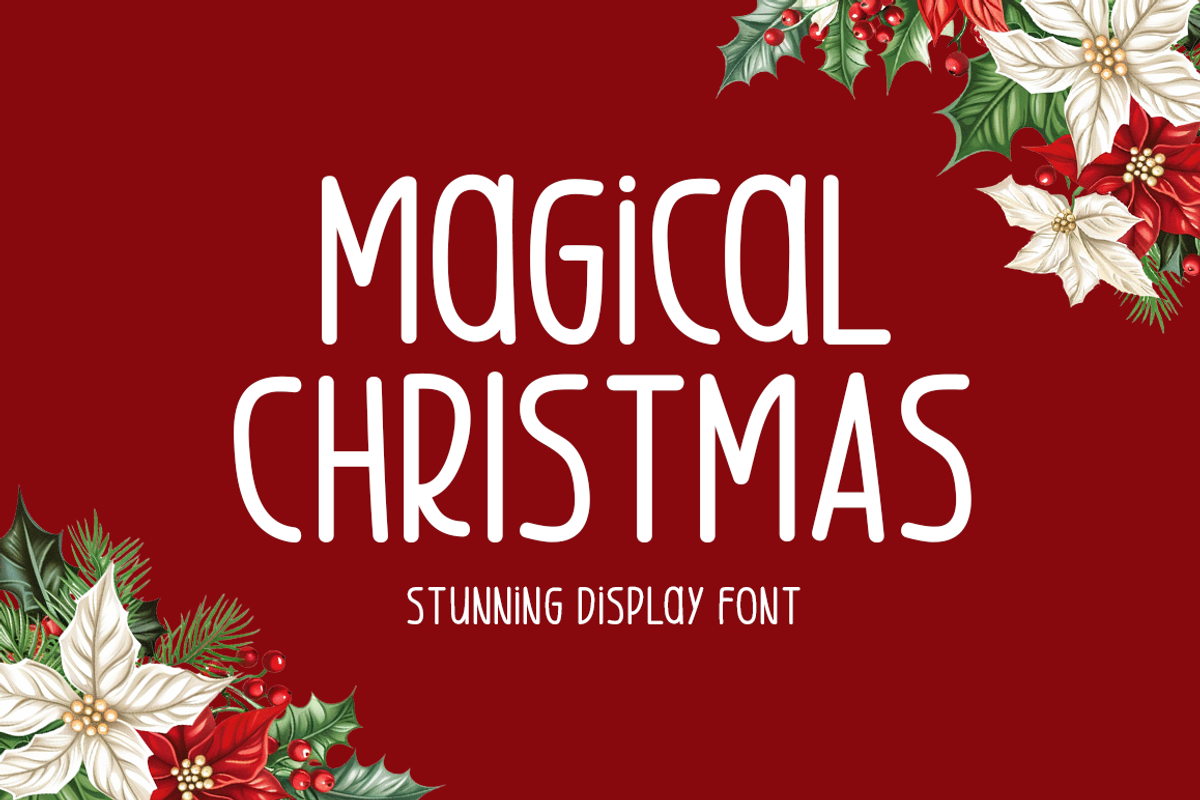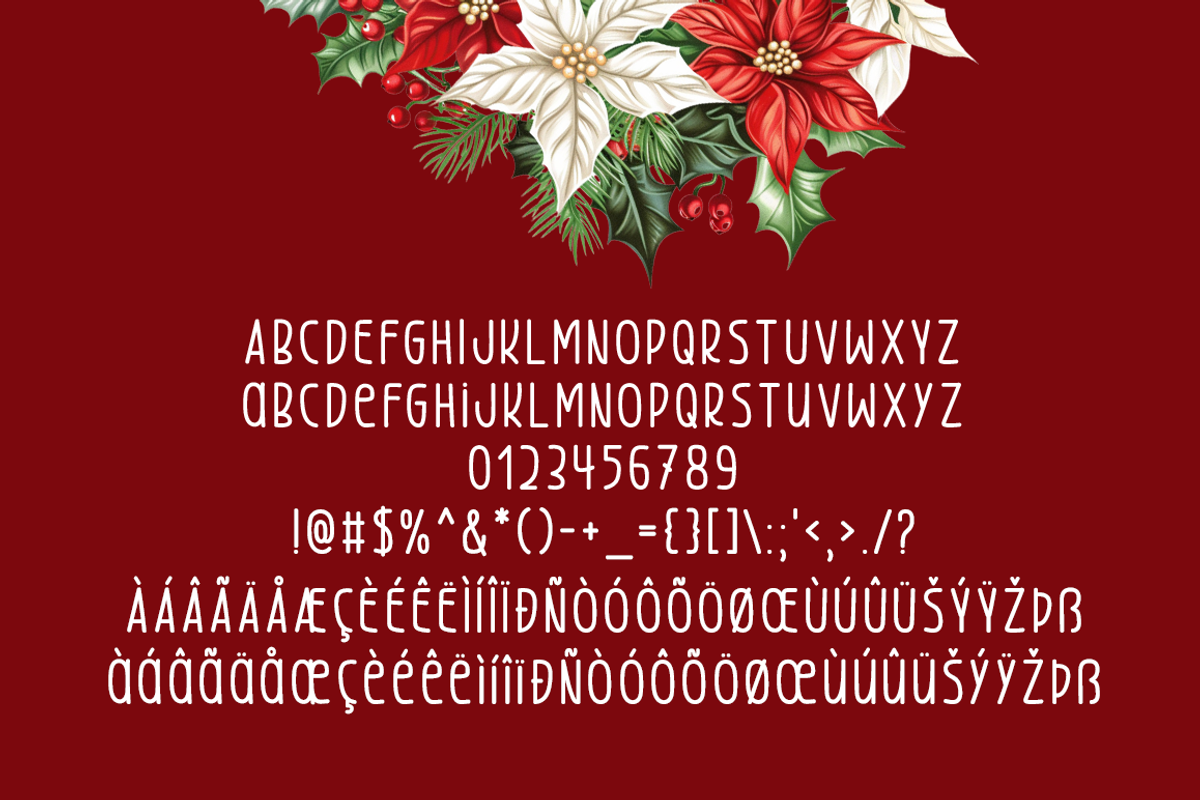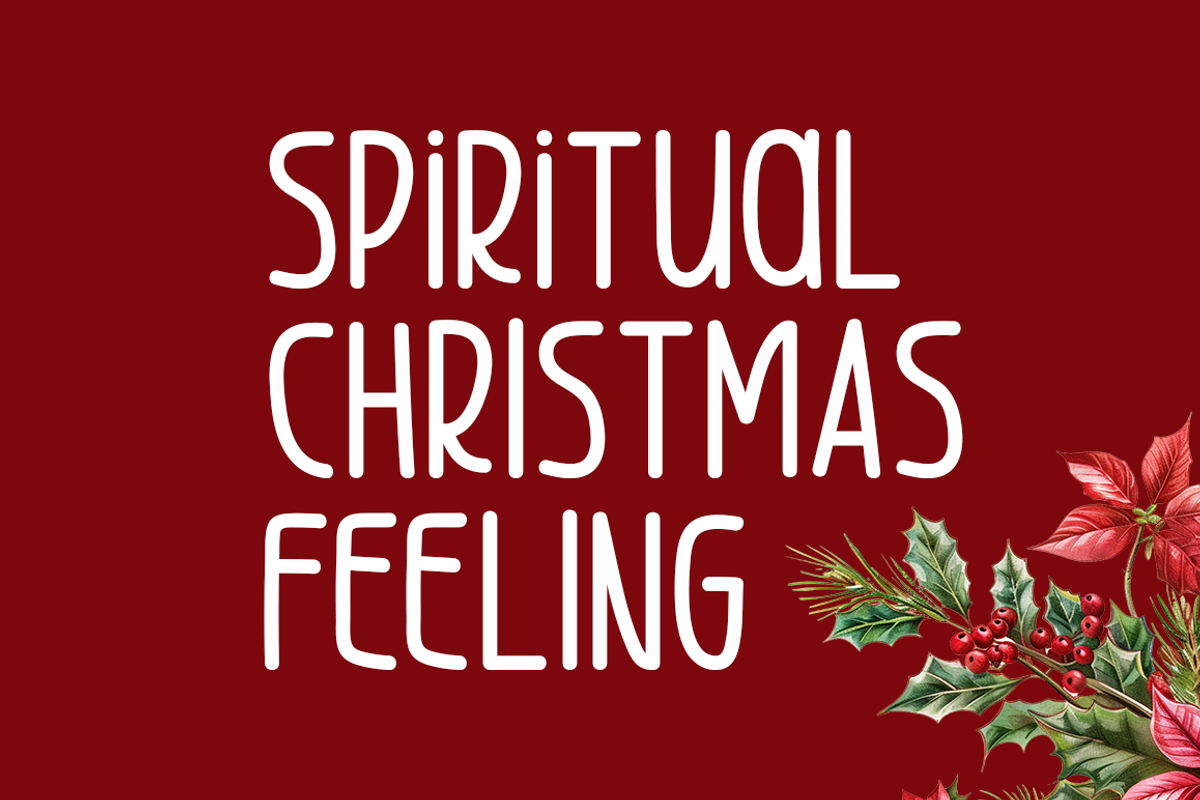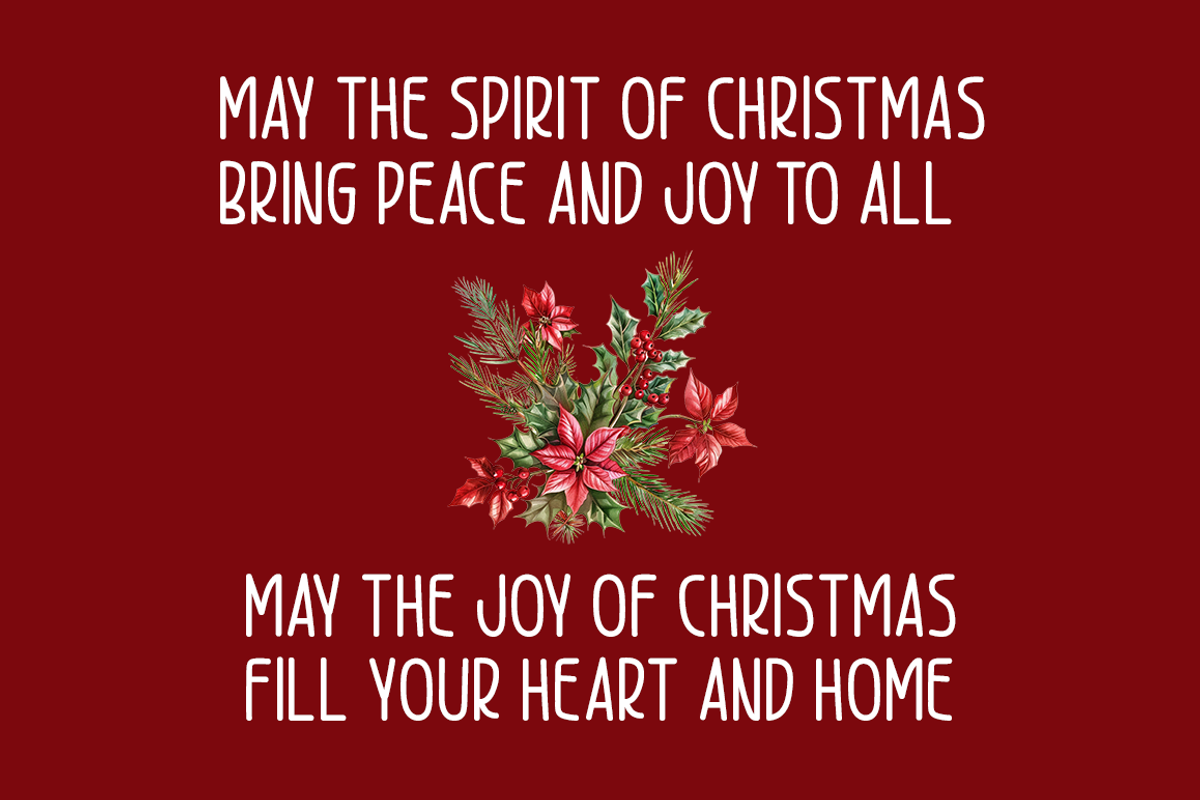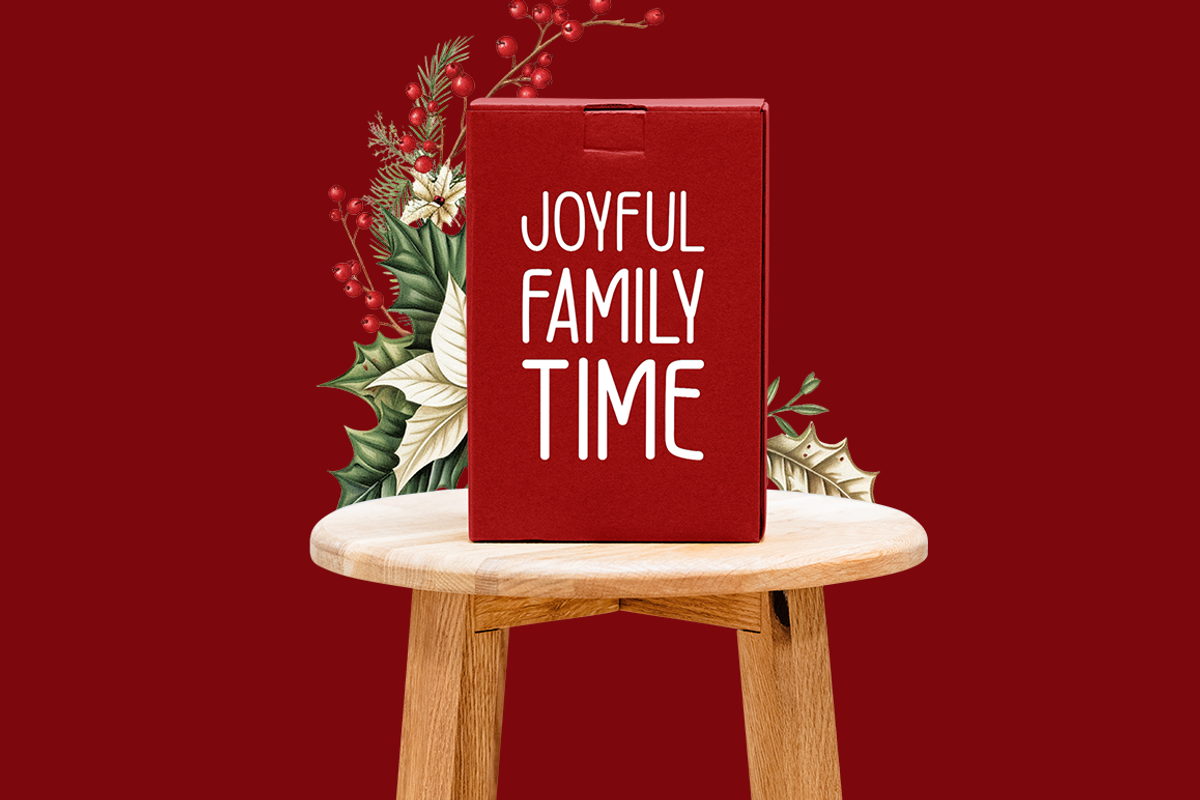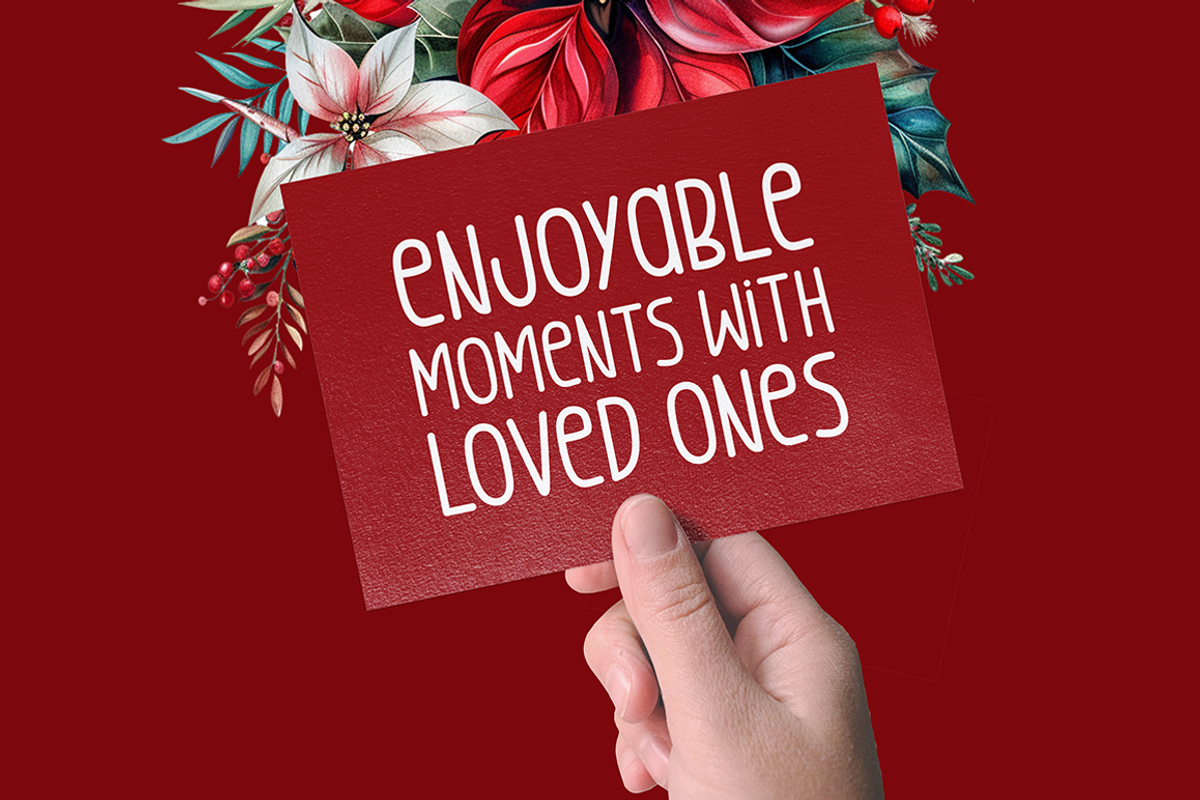
Magical Christmas Typeface
Introducing Magical Christmas!
Magical Christmas is a beautifully crafted display font that evokes the magic of the holiday season. This font is perfect for a variety of creative projects, including stationery, logos, t-shirts, print materials, and more. Whether you're designing website headers, photo frames, flyers, music album covers, or posters, Magical Christmas adds a touch of festive elegance and warmth to every design.
Includes a range of multilingual support